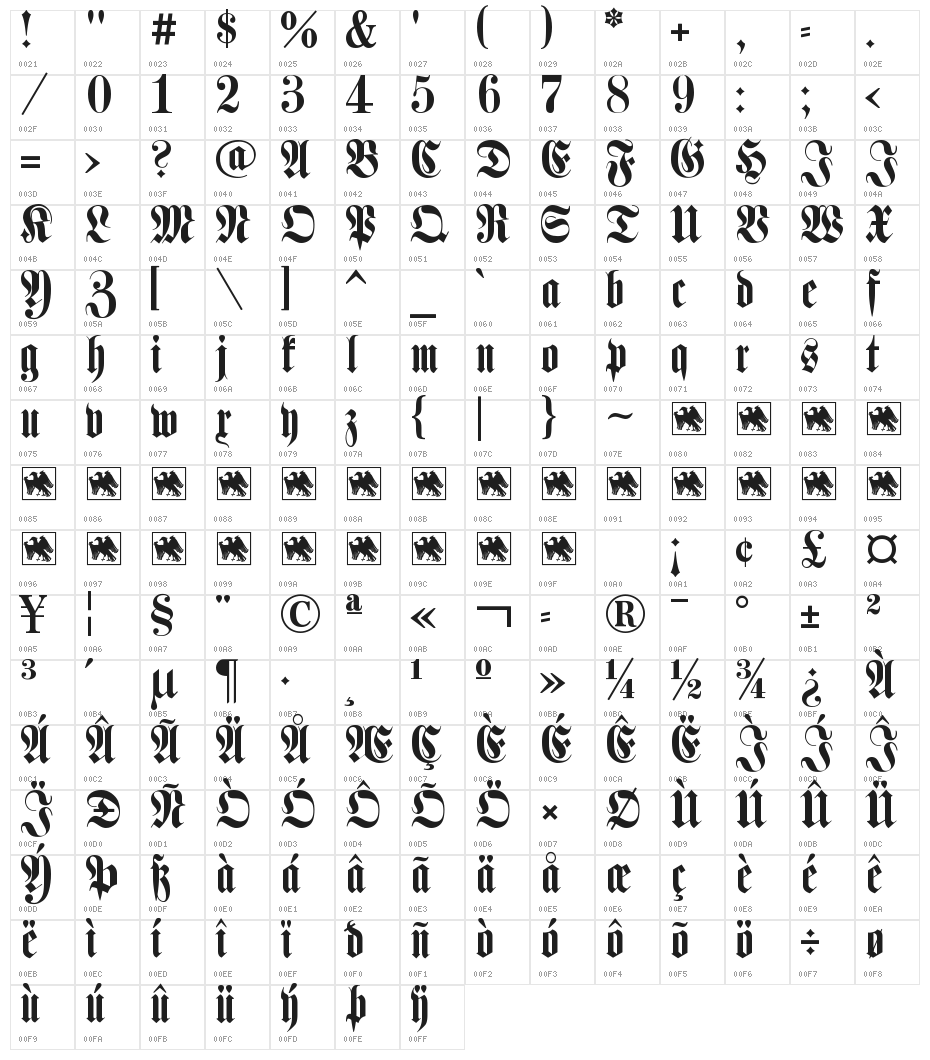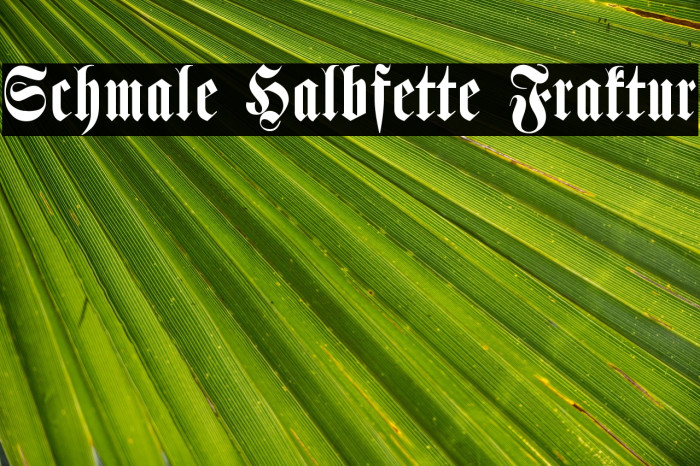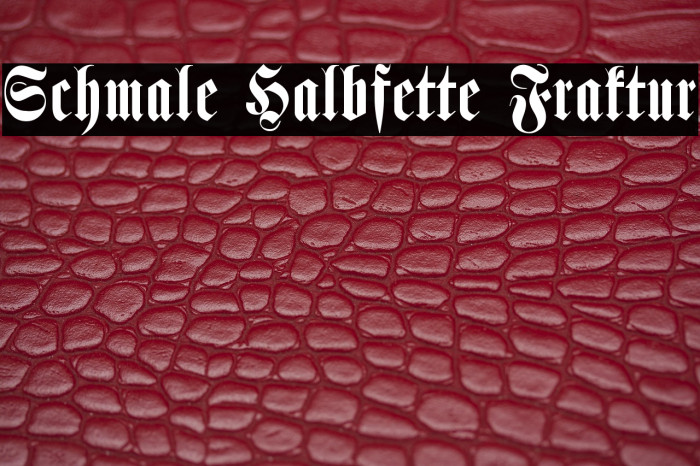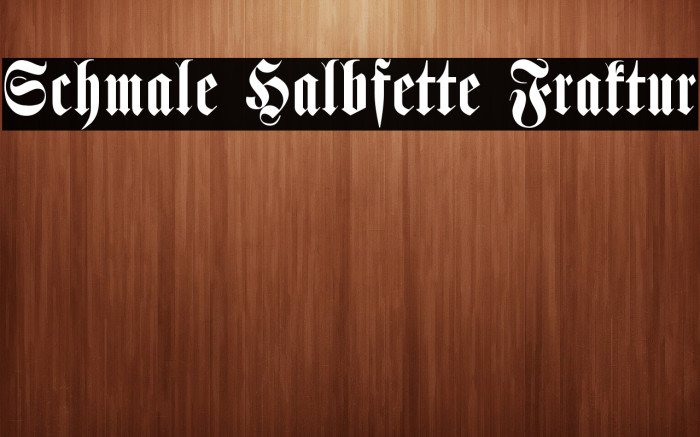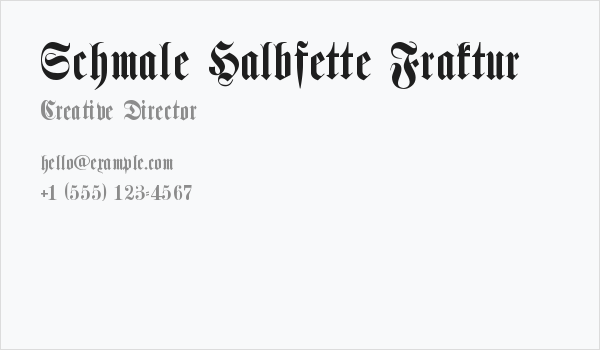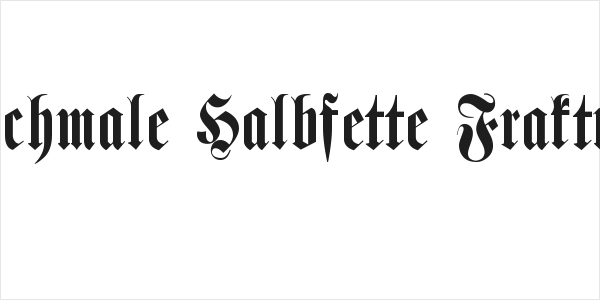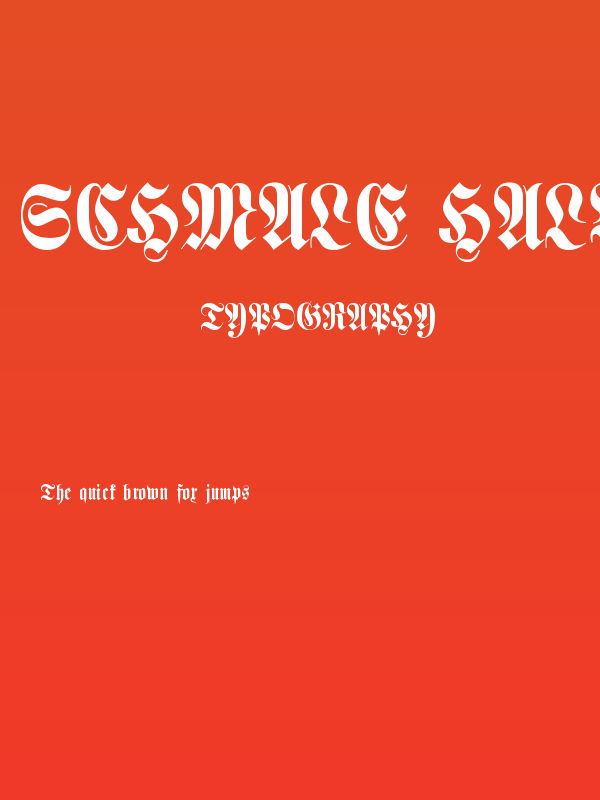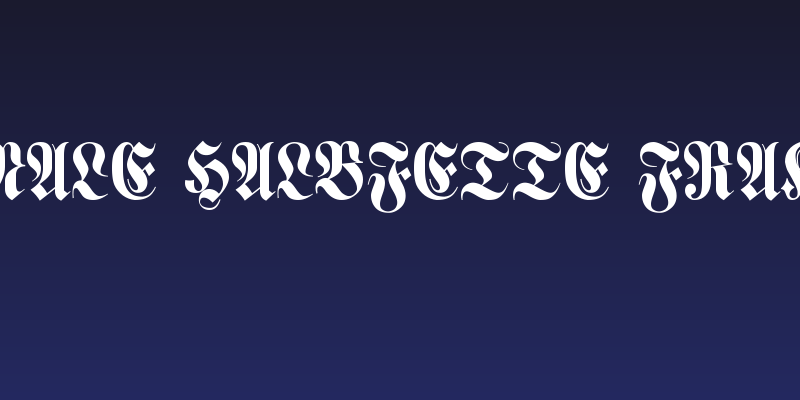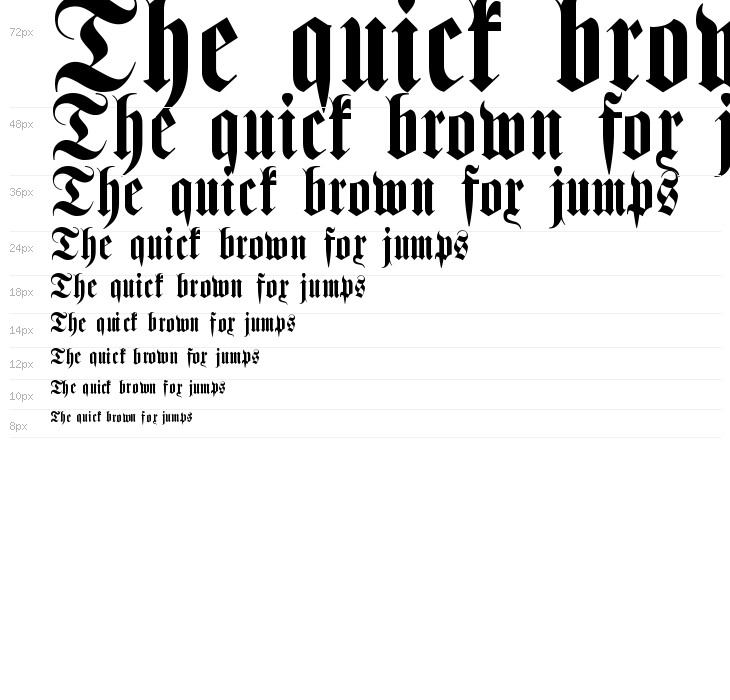
Schmale Halbfette Fraktur Font
Schmale Halbfette Fraktur Description
This font exhibits a traditional blackletter style, characterized by its intricate and ornate design. The letters are bold and feature sharp, angular lines with elaborate curves and flourishes, typical of Gothic script. The uppercase letters are particularly decorative, with extended strokes and embellishments that give them a majestic appearance. The lowercase letters maintain the same level of detail, ensuring consistency throughout the typeface. The numerals and special characters are equally stylized, fitting seamlessly with the overall aesthetic. This font exudes a historical and formal vibe, reminiscent of medieval manuscripts and old-world charm.
| Use Case | Logos, Headlines, Certificates |
| Proposed Projects | Ideal for historical documents, wedding invitations, certificates, and branding that requires a classic, formal touch. |